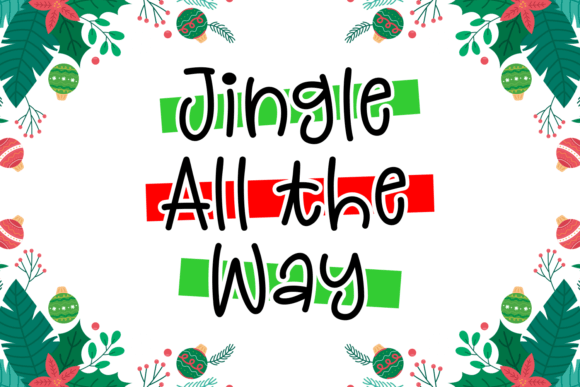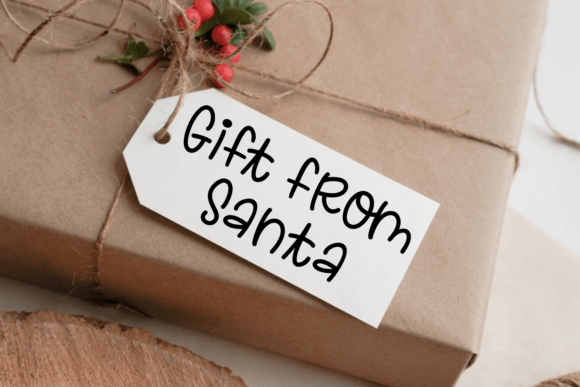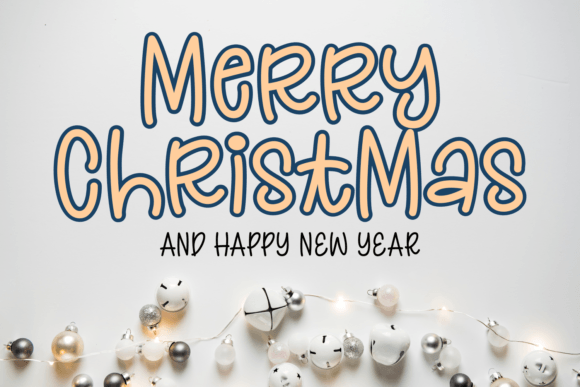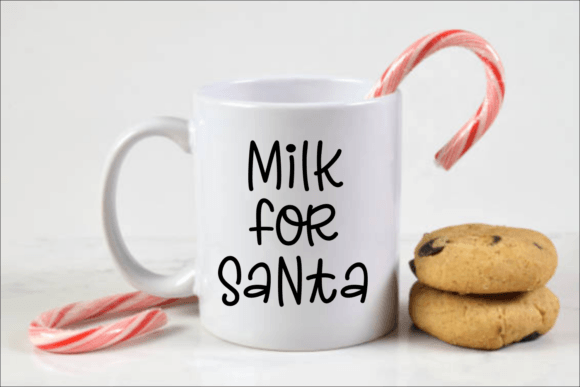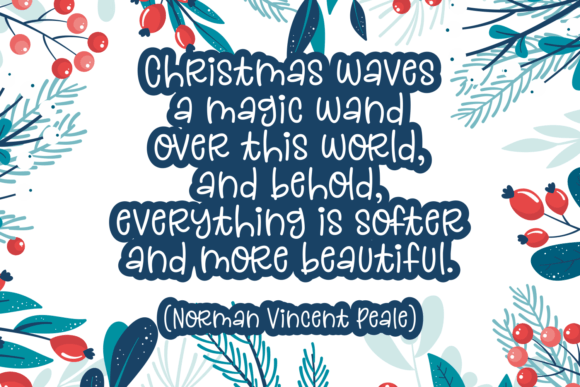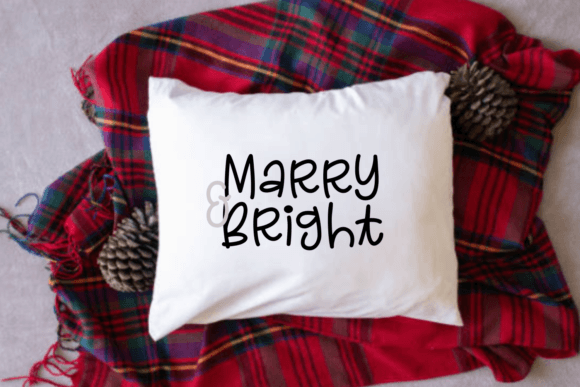
Introduction to Christmas Blooming Font
Christmas Blooming is a brilliant, fun, and aesthetically pleasing handwritten display font, perfect for use on cheerful topics.
Very suitable for childrenโs themed designs or Christmas projects, especially when combined with bright colors .